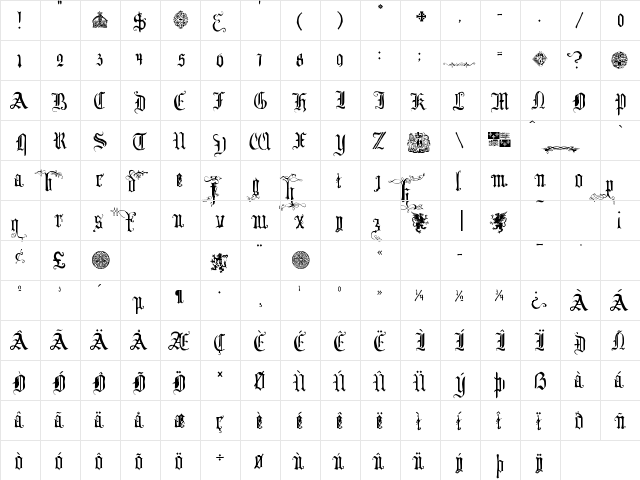
Your Royal Majesty Fancy Font Preview
Your Royal Majesty Fancy
Your Royal Majesty Fancy Font Details
| Style | Fancy |
Design Context for Your Royal Majesty Typeface
Your Royal Majesty is a composed and adaptable typeface that performs quietly and consistently across a wide range of design contexts.